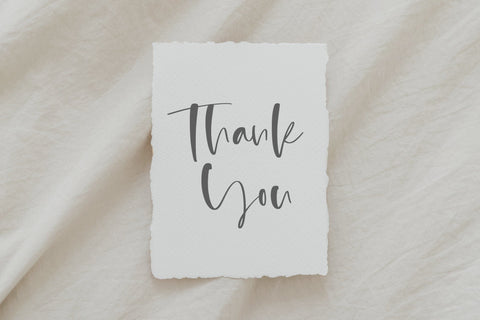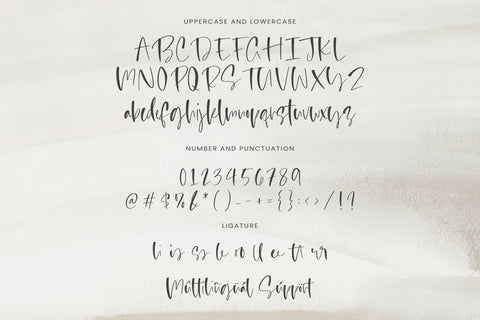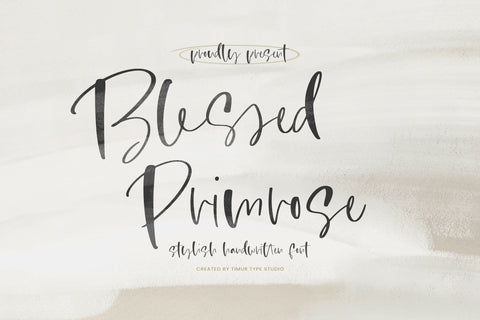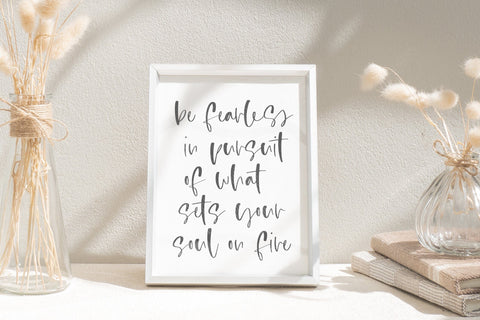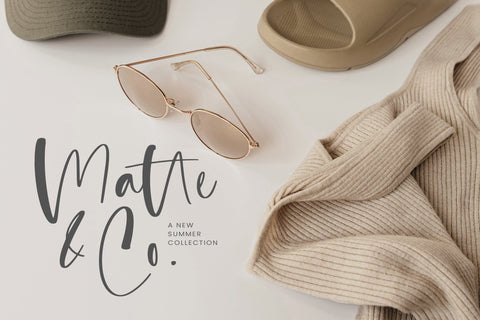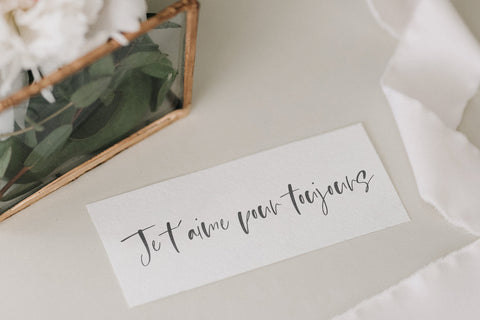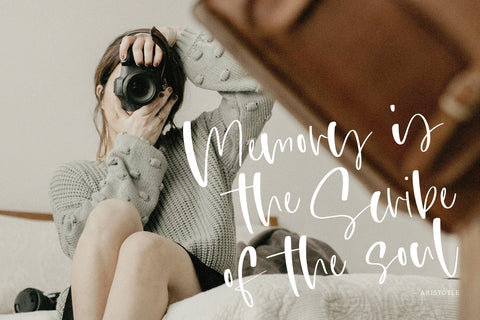
Blessed Primrose - Stylish Handwritten Font
Blessed Primrose is a Stylish Handwritten Font
This font is a elegant and sophisticated choice for your design projects. With its refined and graceful letterforms, this font exudes a sense of luxury and charm. The meticulously crafted details and smooth curves bring a touch of beauty and elegance to any text. The Blessed Primrose font is perfect for creating high-end branding materials, invitations, and editorial designs that require a touch of class and refinement. Its unique and stylish script will elevate your designs, making them truly stand out. Embrace the elegance of the Blessed Primrose handwritten font and add a touch of sophistication to your creations
Blessed Primrose Font also supports multilingualism.